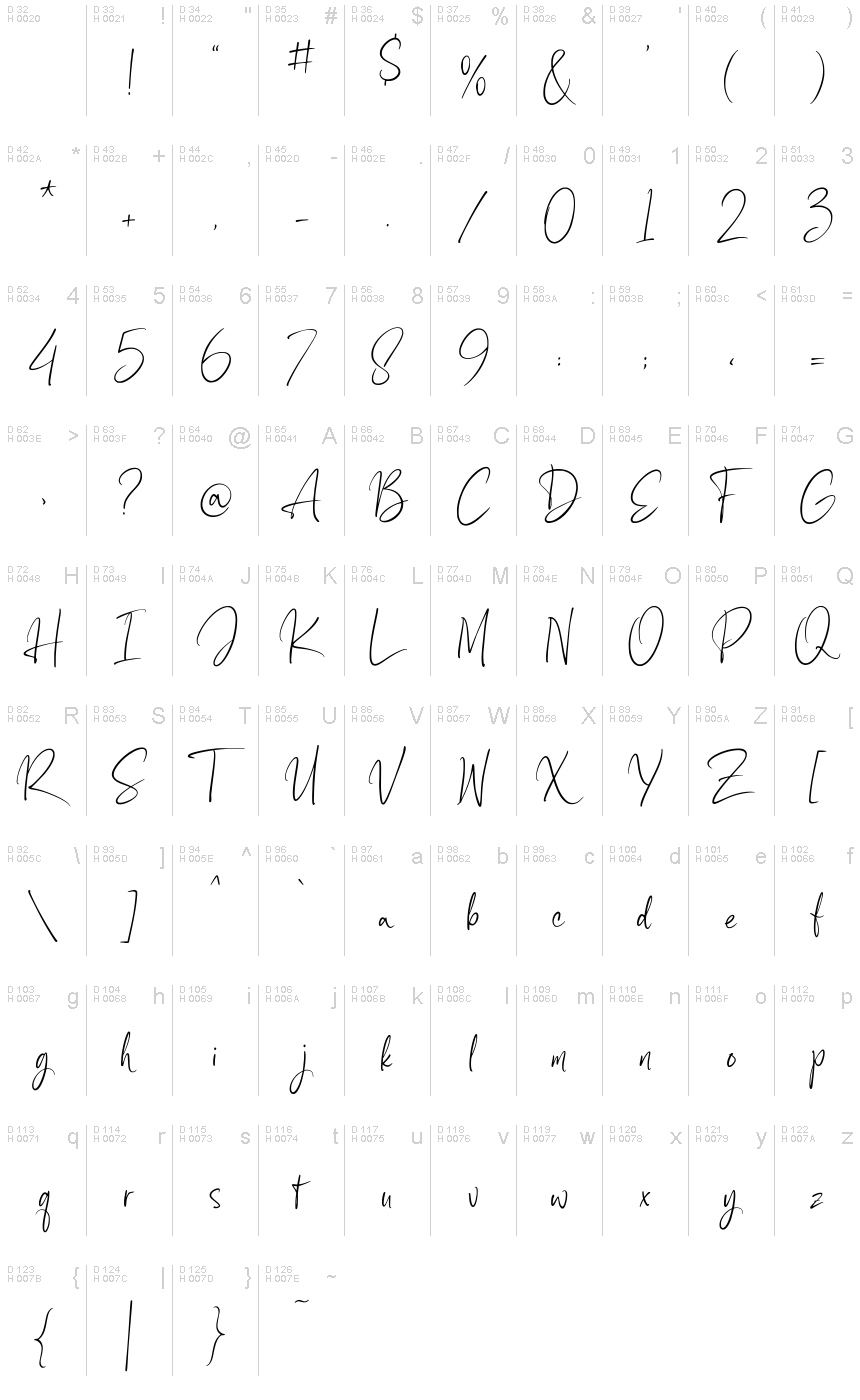
Grandma in the Snowball
Grandma in the Snowball, designed by Cat.B, exudes a charming handwritten aesthetic that seems to capture the warmth and nostalgia of a cozy winter day. Its light font weight and semi-condensed width create an inviting, personal touch that feels as if each character was lovingly crafted by hand. This font's elegant curves and flowing connections conjure images of serene snowscapes and joyous family gatherings.
Perfect for projects that require a touch of intimacy and personality, Grandma in the Snowball can elevate greeting cards, invitations, or any creative work seeking to convey authenticity and heartfelt sentiment. Its distinct style bridges the gap between classic script elegance and modern design sensibilities, offering designers a versatile tool for storytelling through typography.